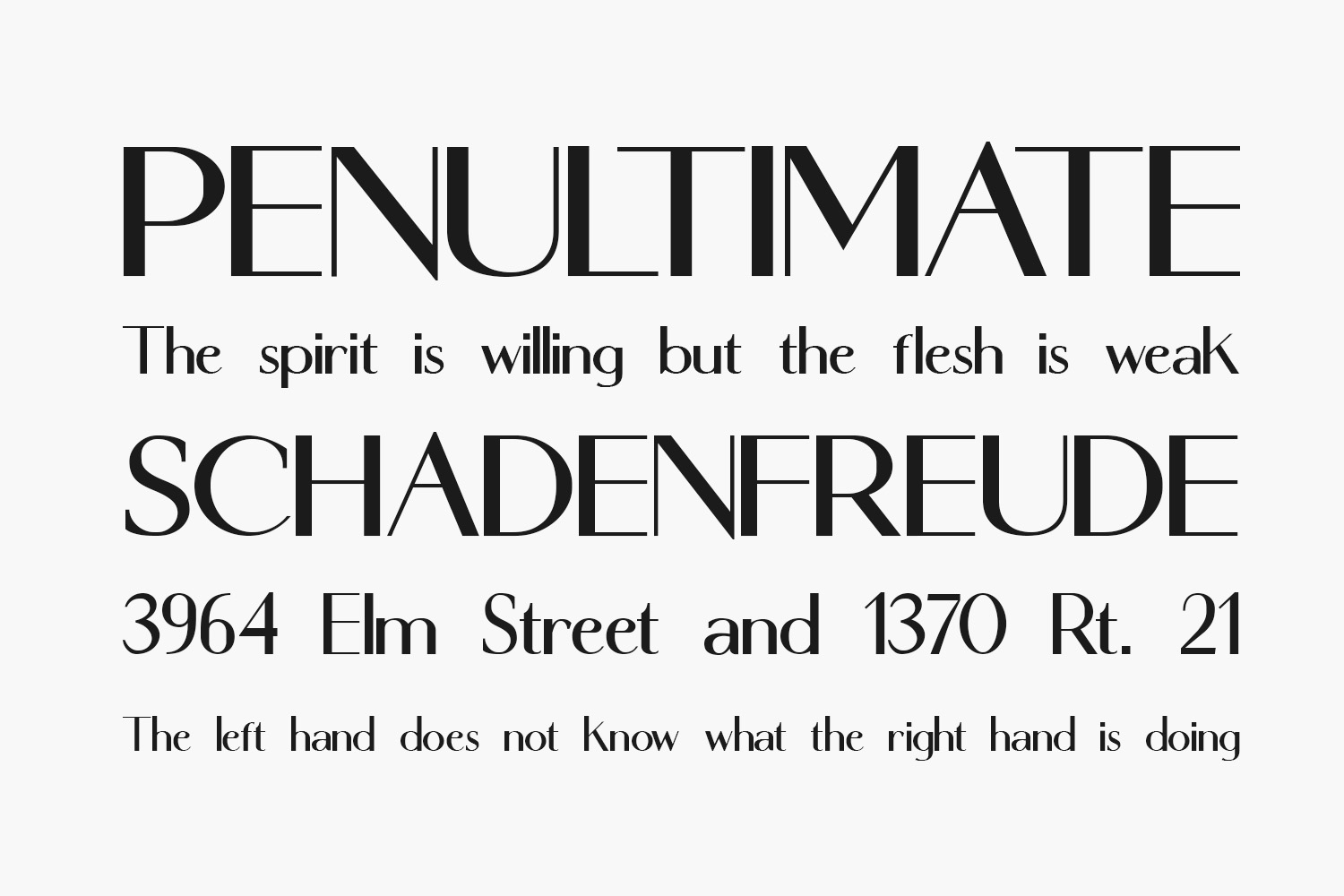
Revonza
Revonza Free Font is a spectacular duo font (sans serif and script). Incredibly powerful and beautiful, this font fits a wide pool of designs, elevating them to the highest levels. Add this font to your favorite creative ideas and notice how it makes them come alive. Revonza Free Font was designed by XD Creative and is free for personal use only. Please purchase the full version for commercial use.